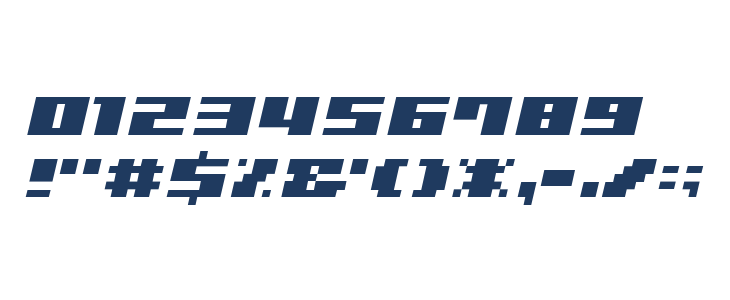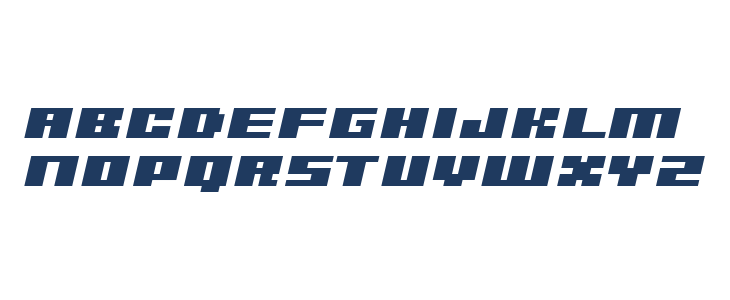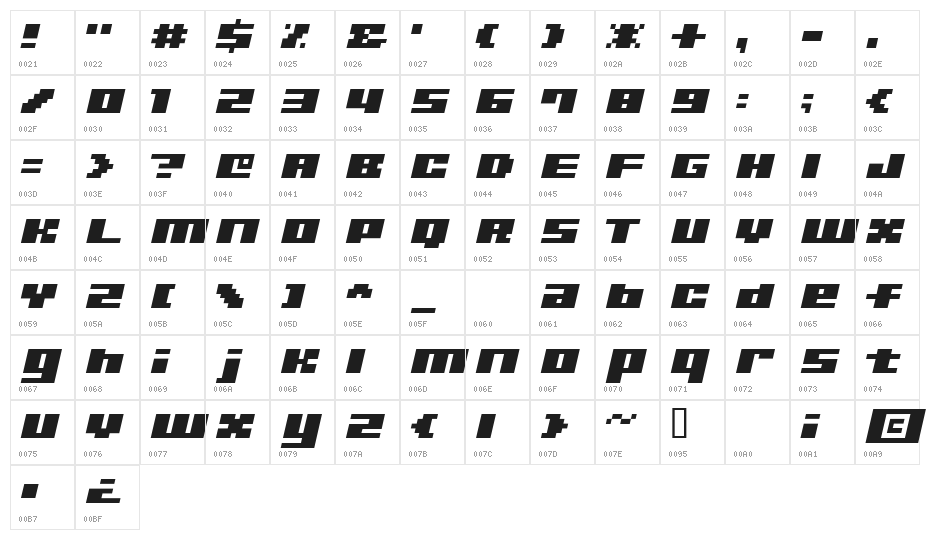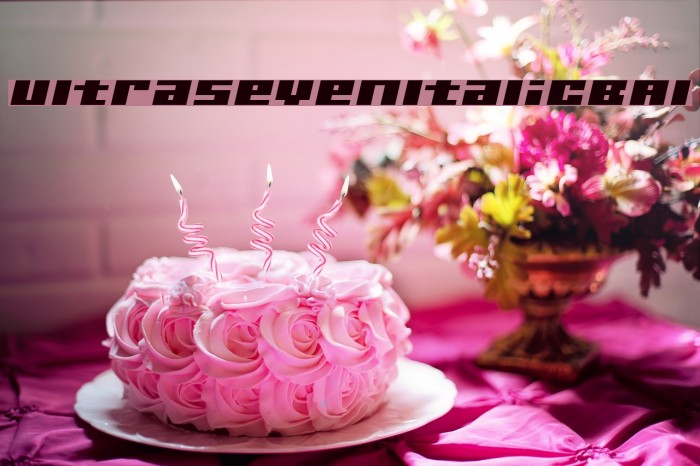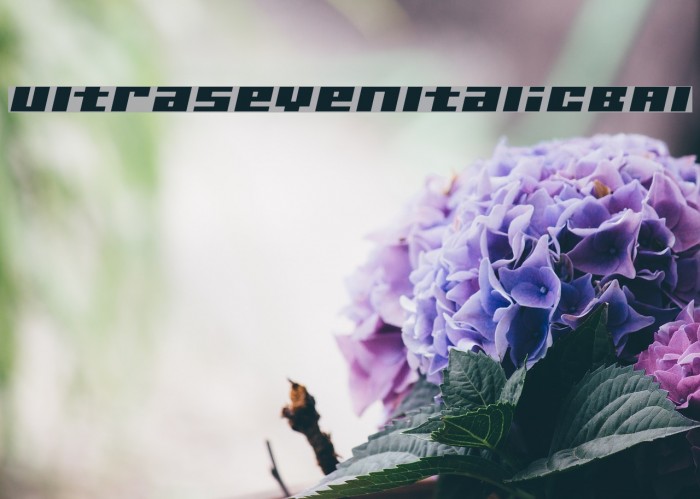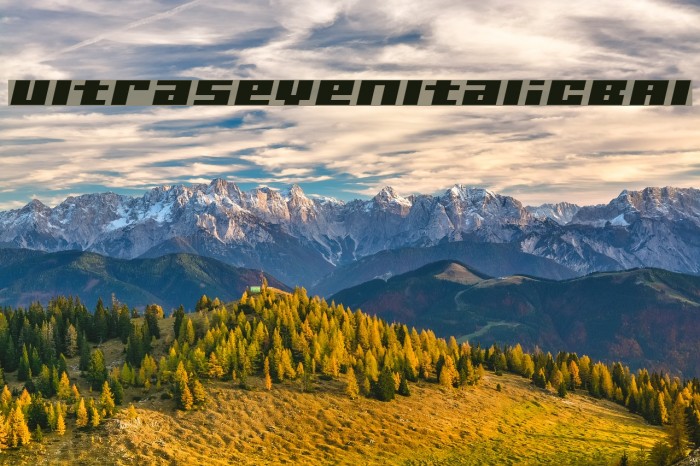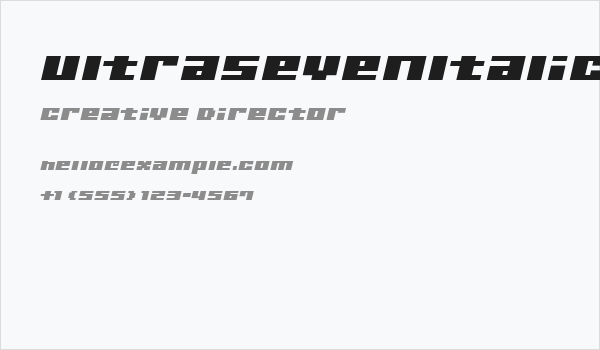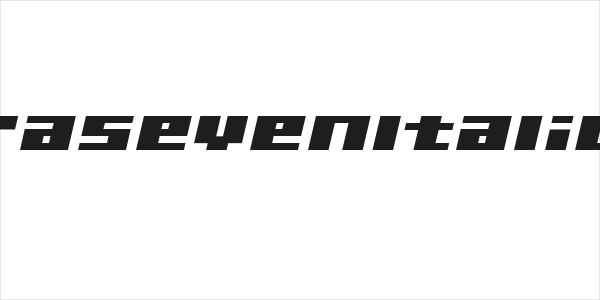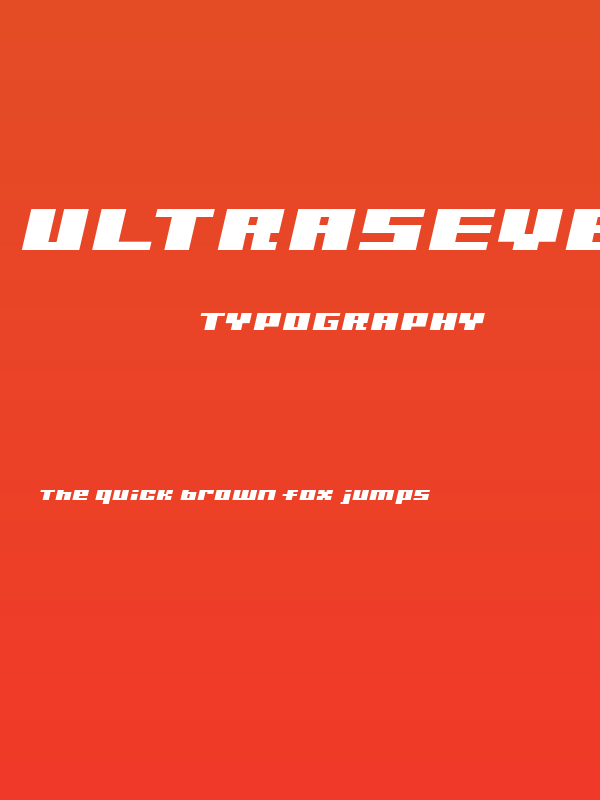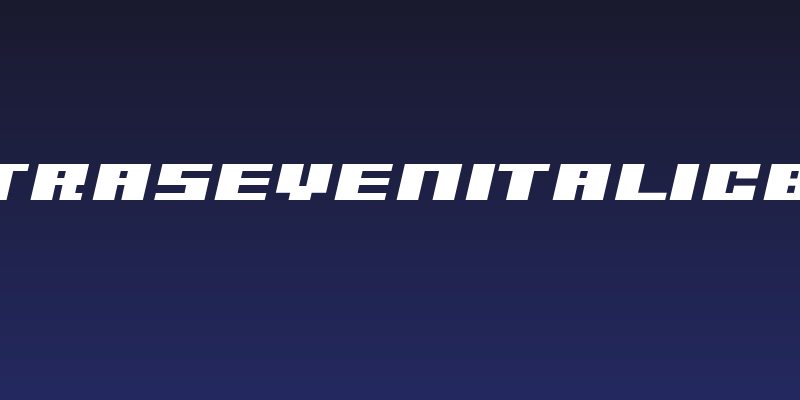
UltraSevenItalicBAl Font
UltraSevenItalicBAl Description
This font features a bold, italicized style with a futuristic and dynamic appearance. The characters are blocky and angular, conveying a sense of movement and energy. Each letter is distinct, with sharp edges and a slightly condensed form, giving it a compact yet powerful look. The numbers and special characters maintain the same boldness and angularity, ensuring consistency throughout the typeface. This font is ideal for projects that require a modern and impactful visual presence.
| Proposed Projects | Ideal for sci-fi themed designs, video game titles, posters, and branding that requires a modern and energetic look. |